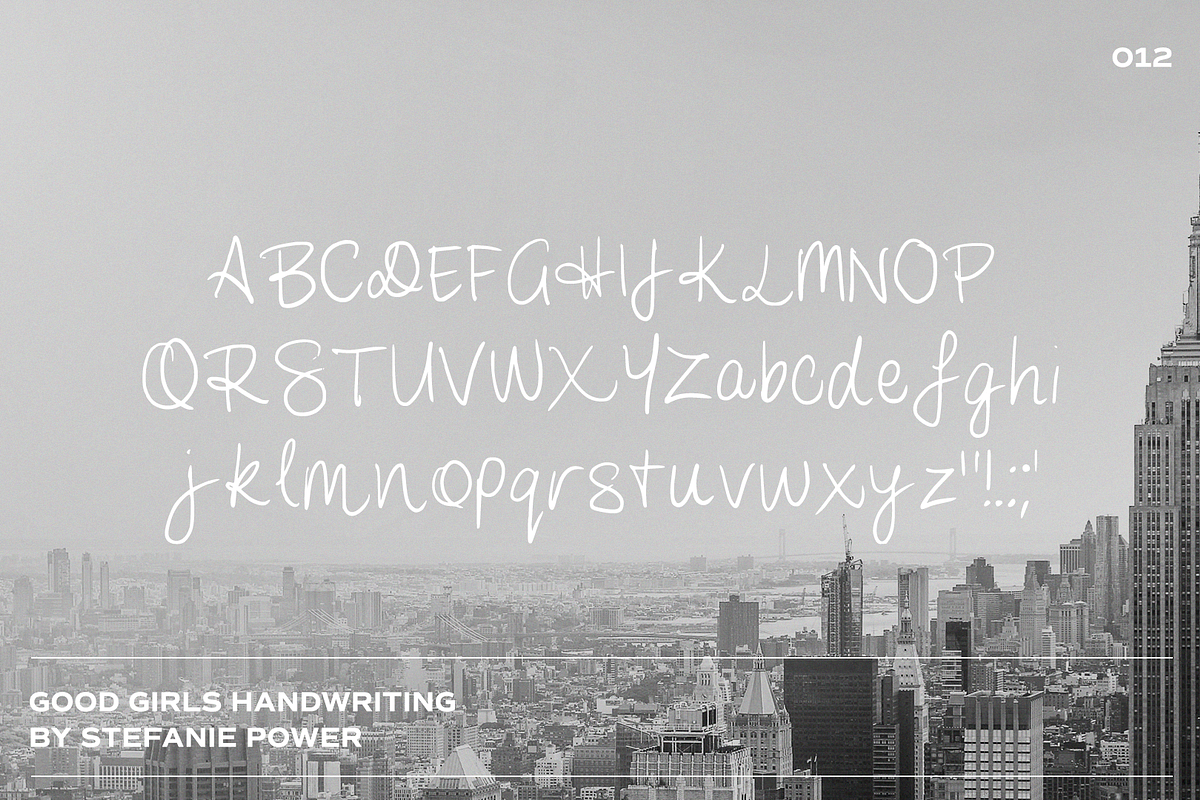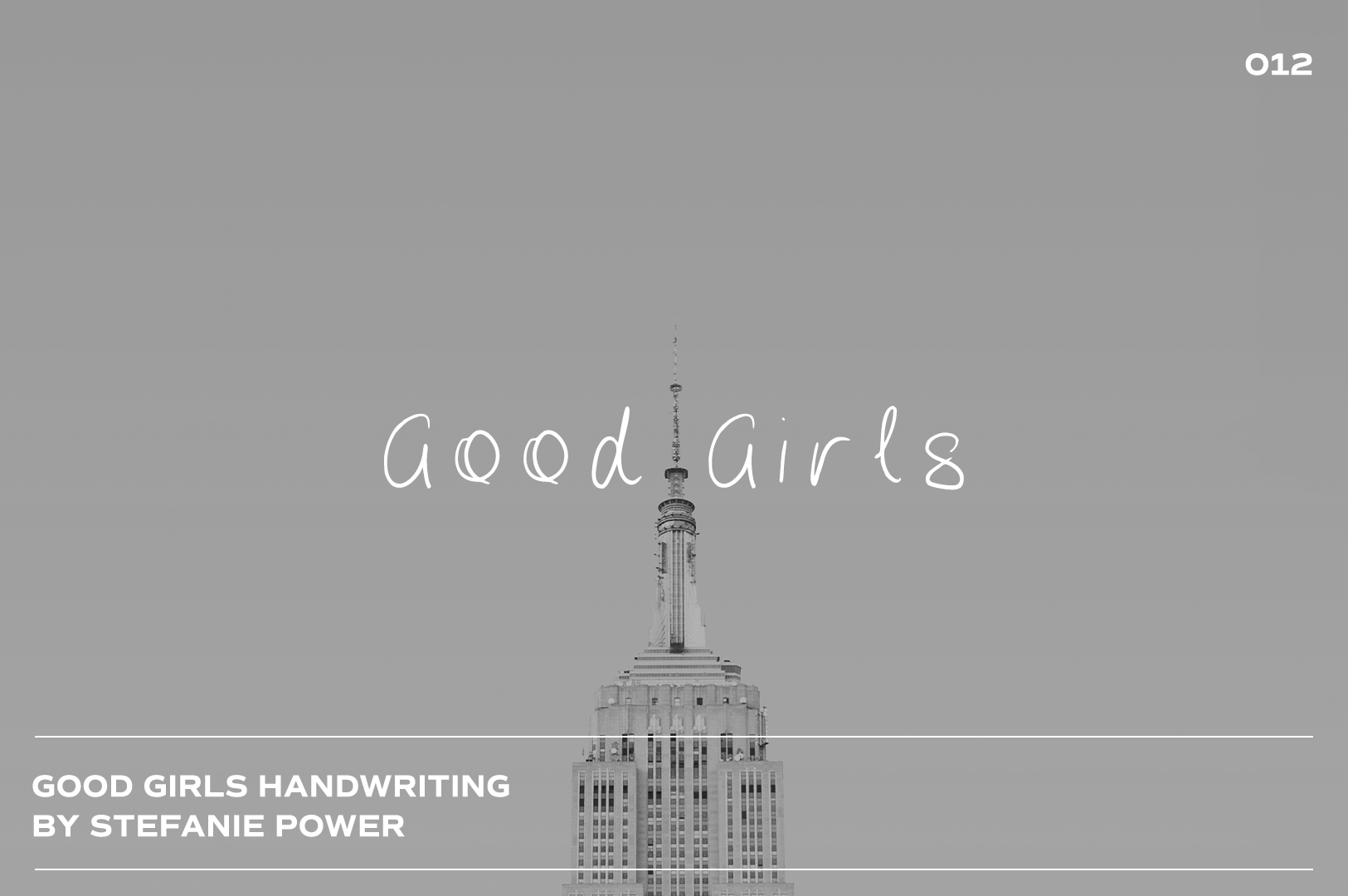
Good Girls Handwriting | Font
Introducing 'Good Girls' - the perfect delicate handwritten font.
Good Girls Handwriting • A handwritten script font containing upper & lowercase characters and a range of punctuation and numbers.